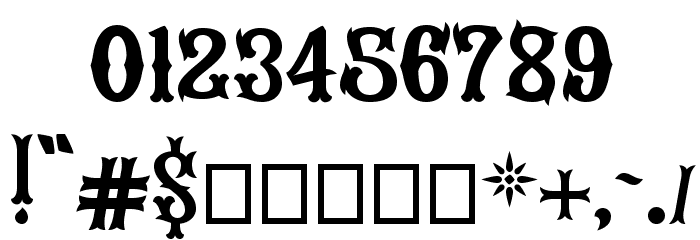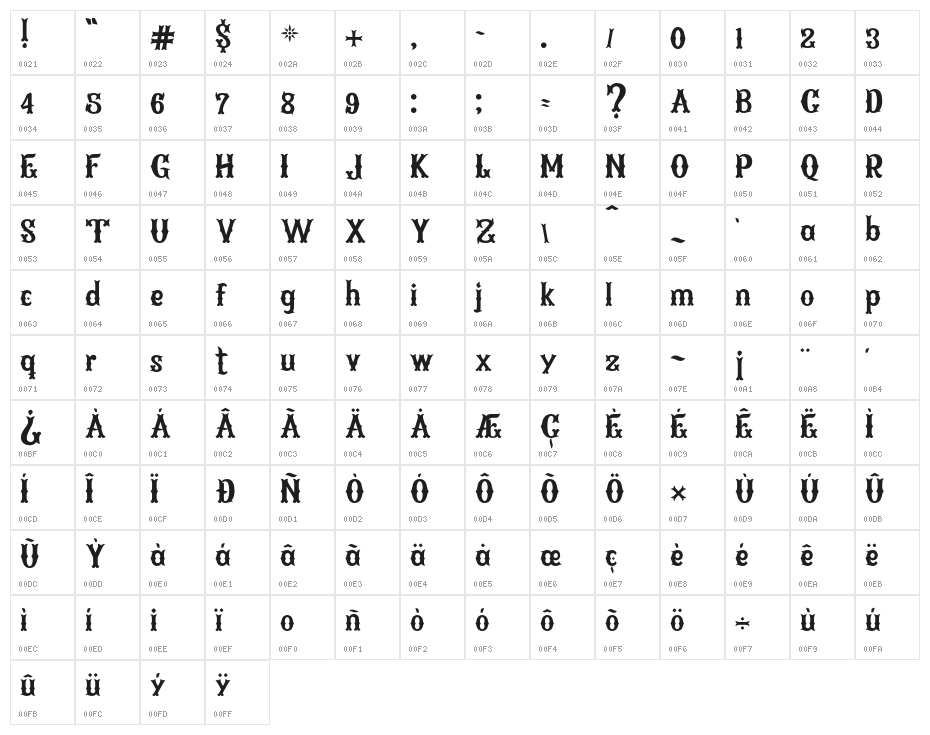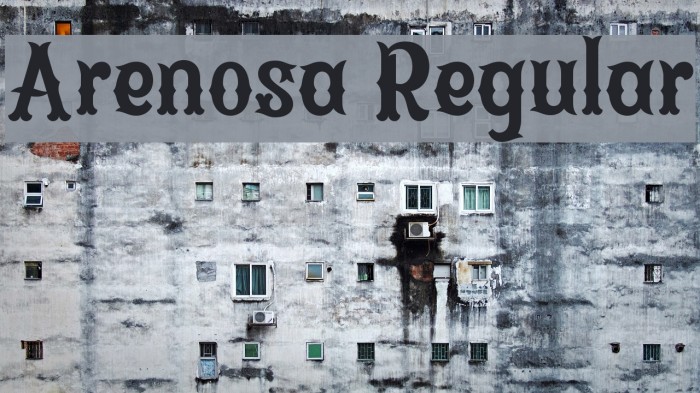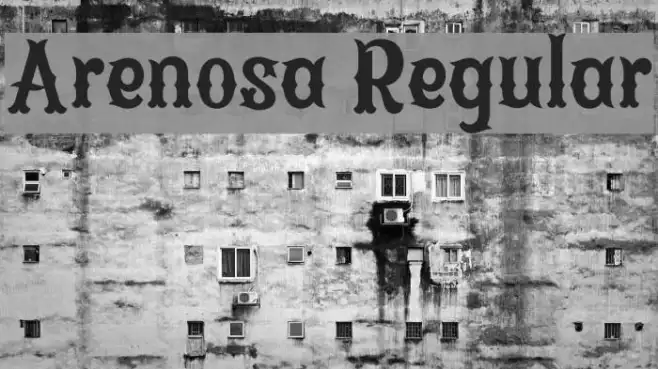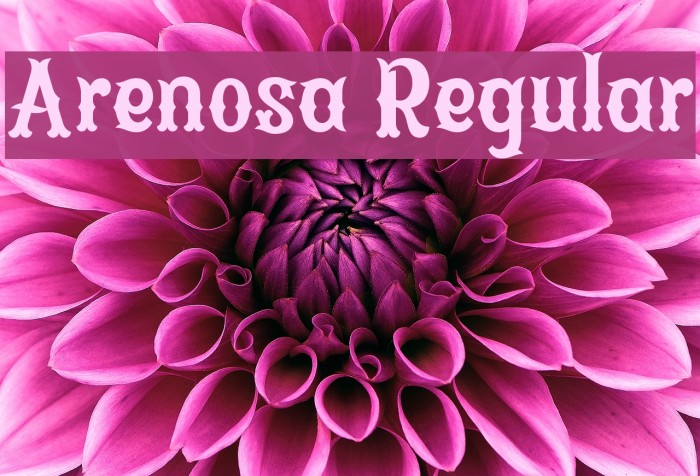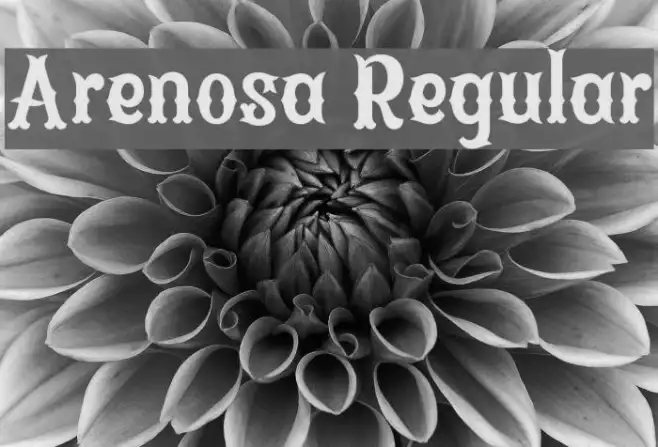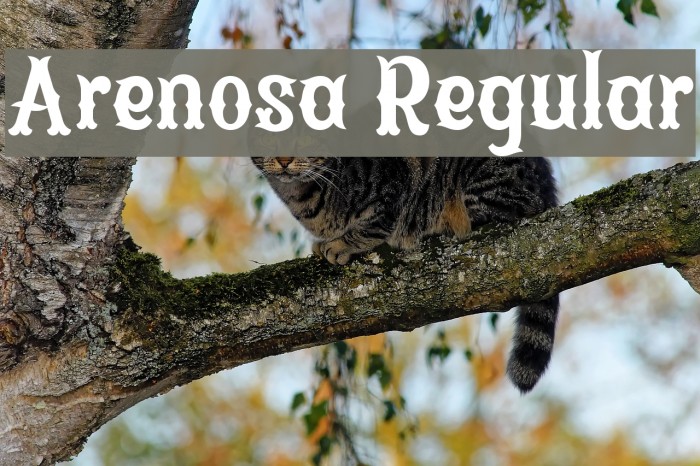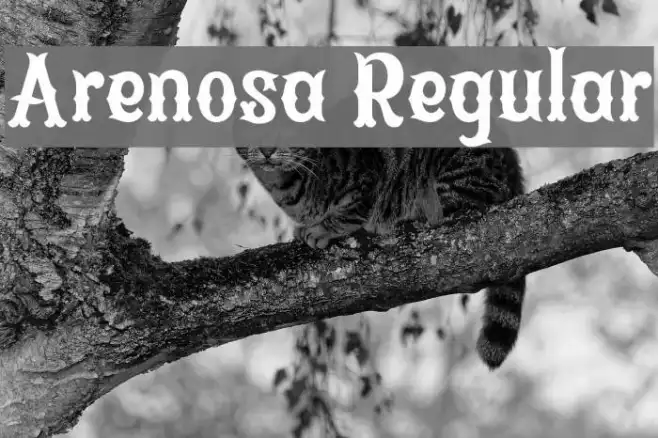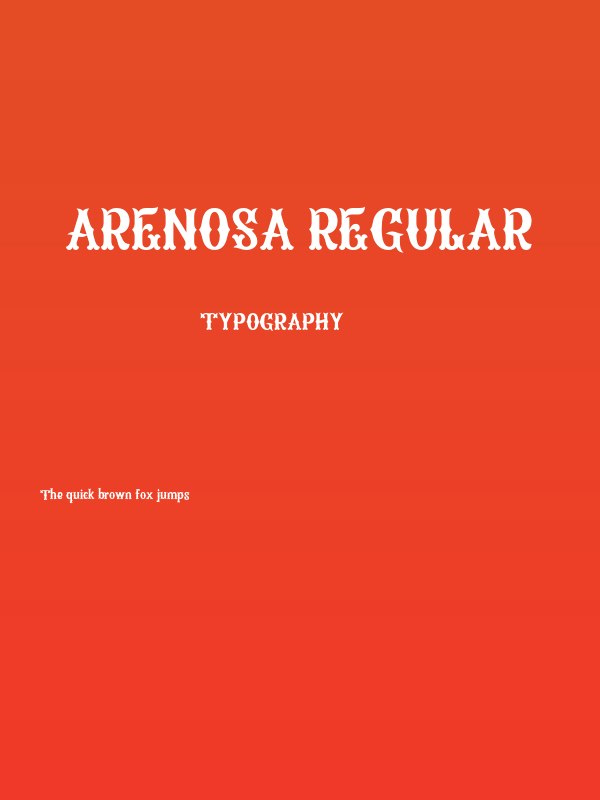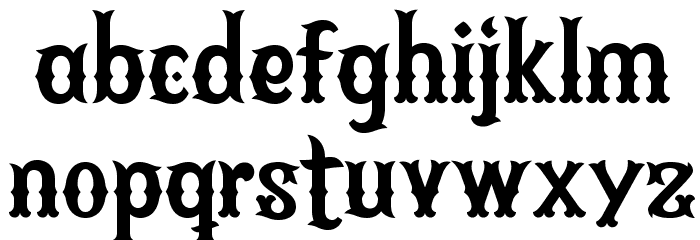
Arenosa Regular Font
Arenosa Regular Description
This font features a bold and decorative style with intricate details that give it a unique and eye-catching appearance. The characters are designed with a high level of contrast, showcasing thick strokes and sharp edges. The uppercase letters have a commanding presence, while the lowercase letters maintain a consistent style that complements the overall design. The numerals and special characters are equally ornate, making this font suitable for projects that require a touch of elegance and flair. Its distinctive look makes it ideal for creative and artistic applications.
Proposed ProjectsThis font is perfect for use in branding, poster design, album covers, and any project that requires a striking and artistic typeface.